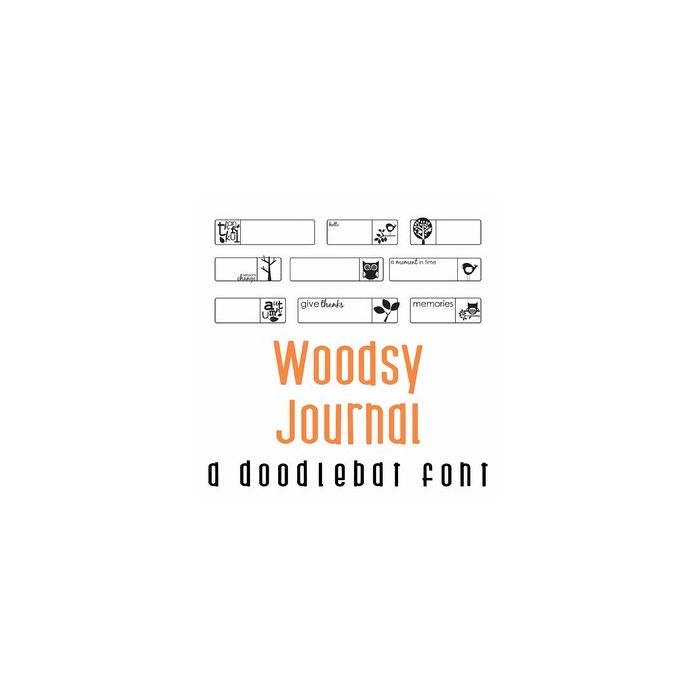
This fun doodlebat font features 26 forest and animal journaling labels. Perfect for cards, crafts, gifts, decor, scrap book pages, planner stickers and more!